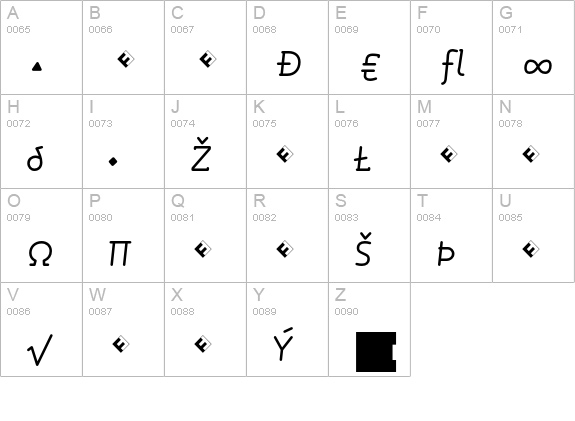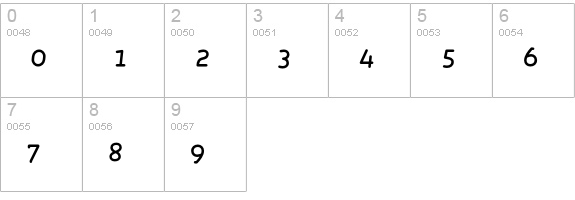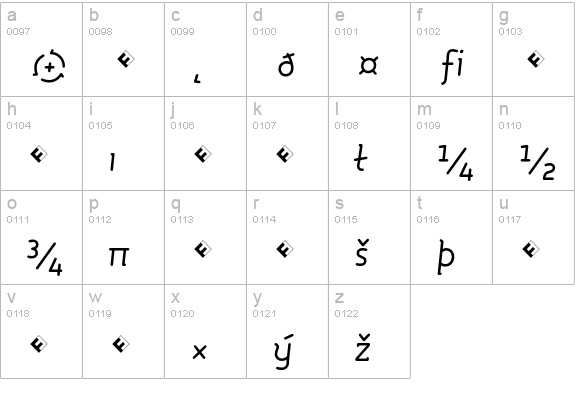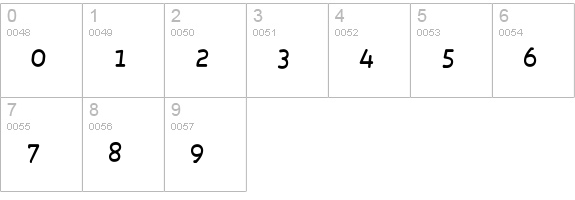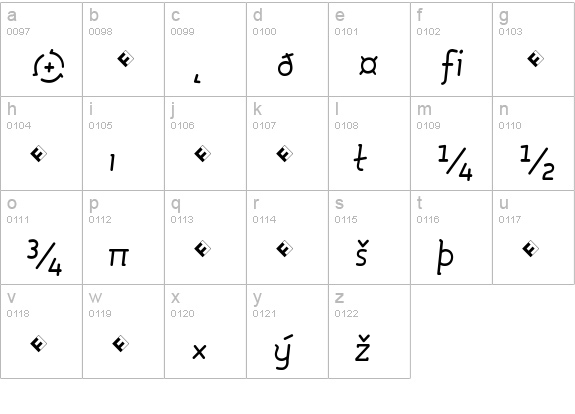
The Roice-RegularItalicExpert font exudes elegance with its sophisticated and sleek italics, making it the perfect choice for projects requiring a touch of refinement. This font strikes the perfect balance between professionalism and creativity, making it versatile for a wide range of design purposes. Its expertly crafted curves and angles give it a distinct and modern look that is sure to captivate viewers. The best part? Roice-RegularItalicExpert font is completely free to download at FontsMarket.com, allowing you to elevate your designs without breaking the bank. Whether you're working on a branding project, a stylish invitation, or a striking poster, this font is sure to make a lasting impression. Don't miss out on the opportunity to enhance your designs with the timeless appeal of Roice-RegularItalicExpert font. Download it today and let your creativity soar!